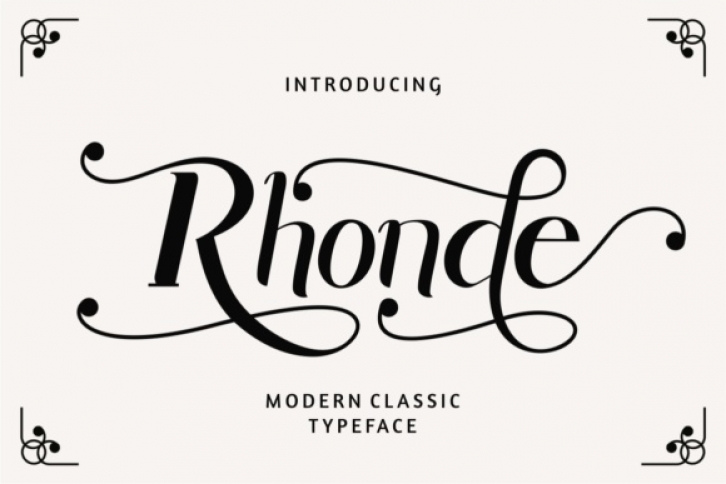
The Rhonde is a modern typeface with swashes that can be combined to create unique and beautiful designs. It’s great for logos, tittles, headlines, taglines, t-shirts, handwritten quotes, product packaging, posters, merchandise, and much more!